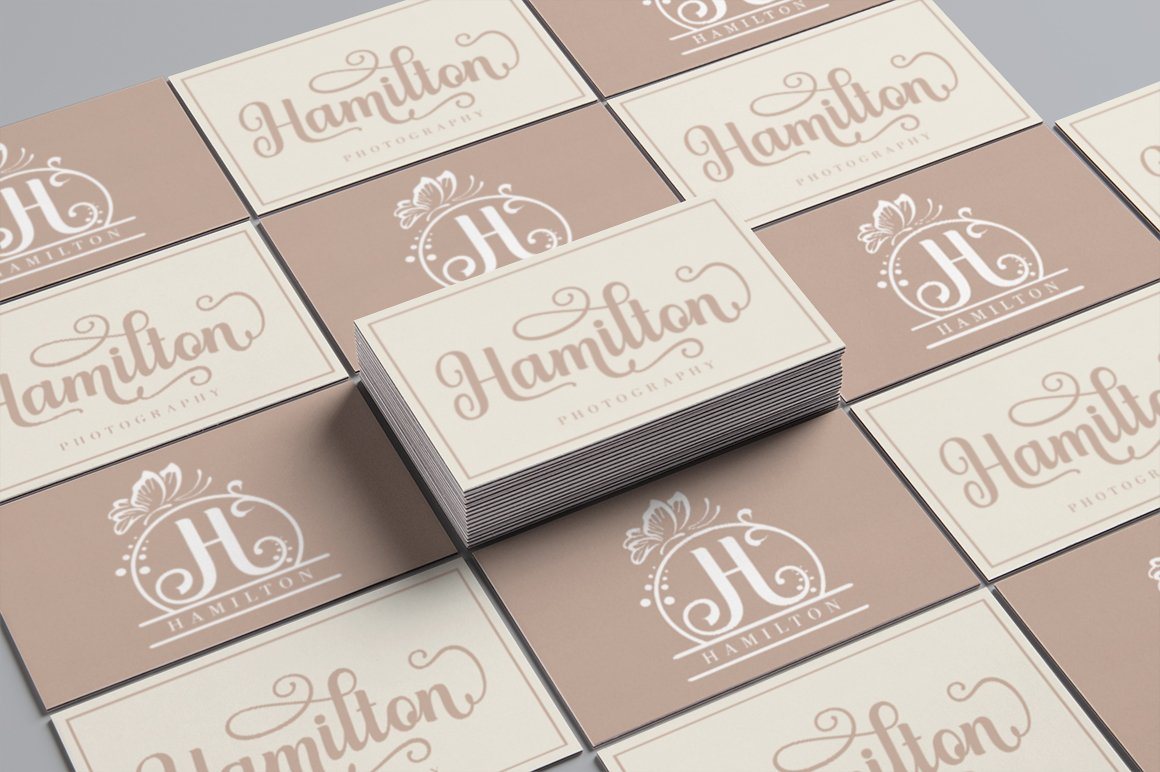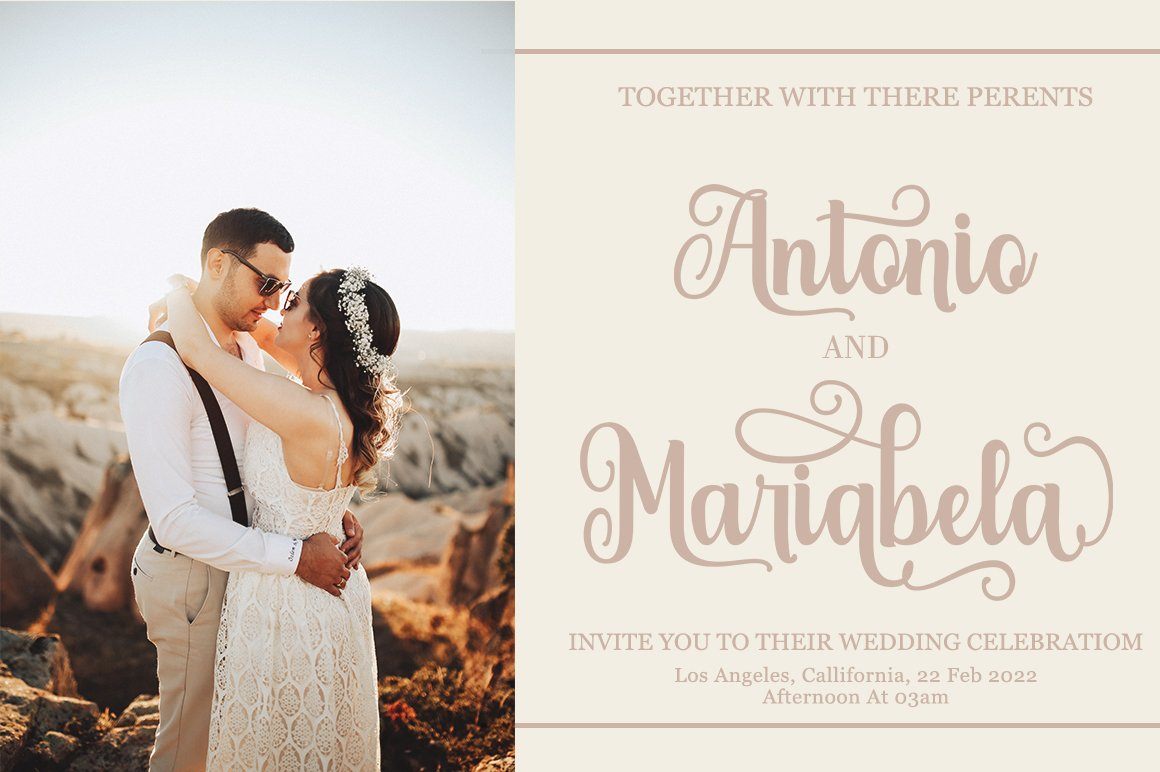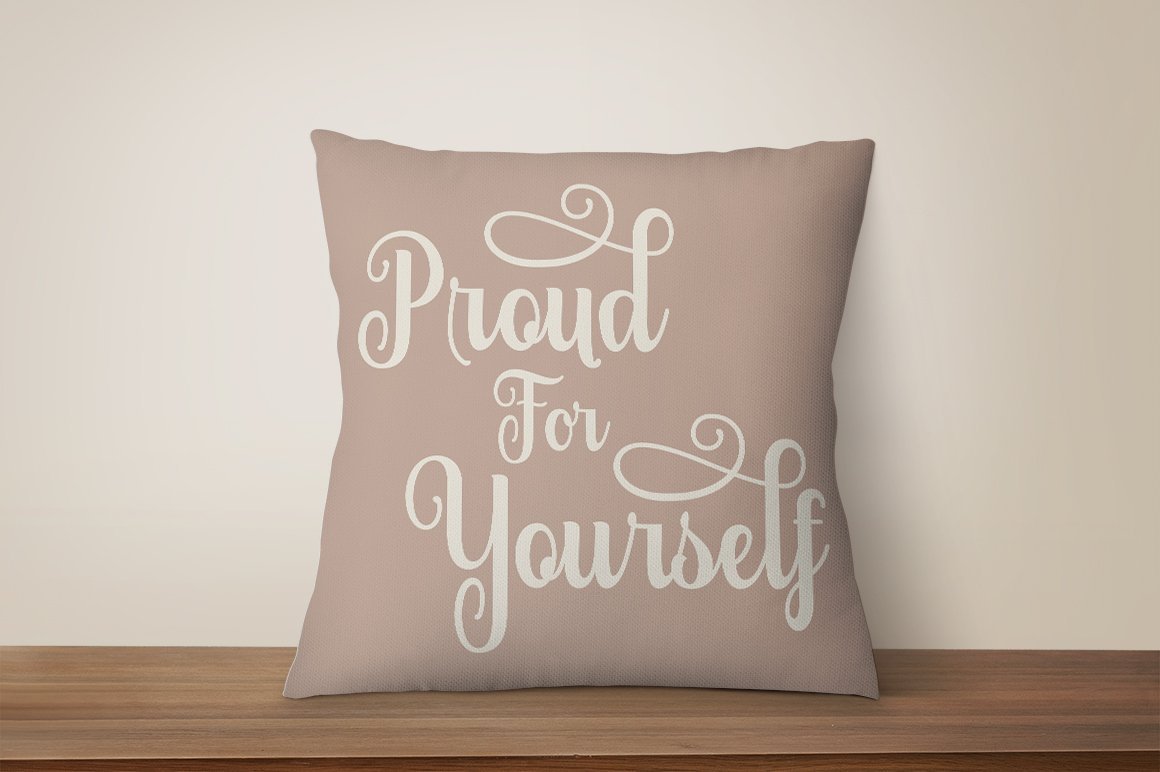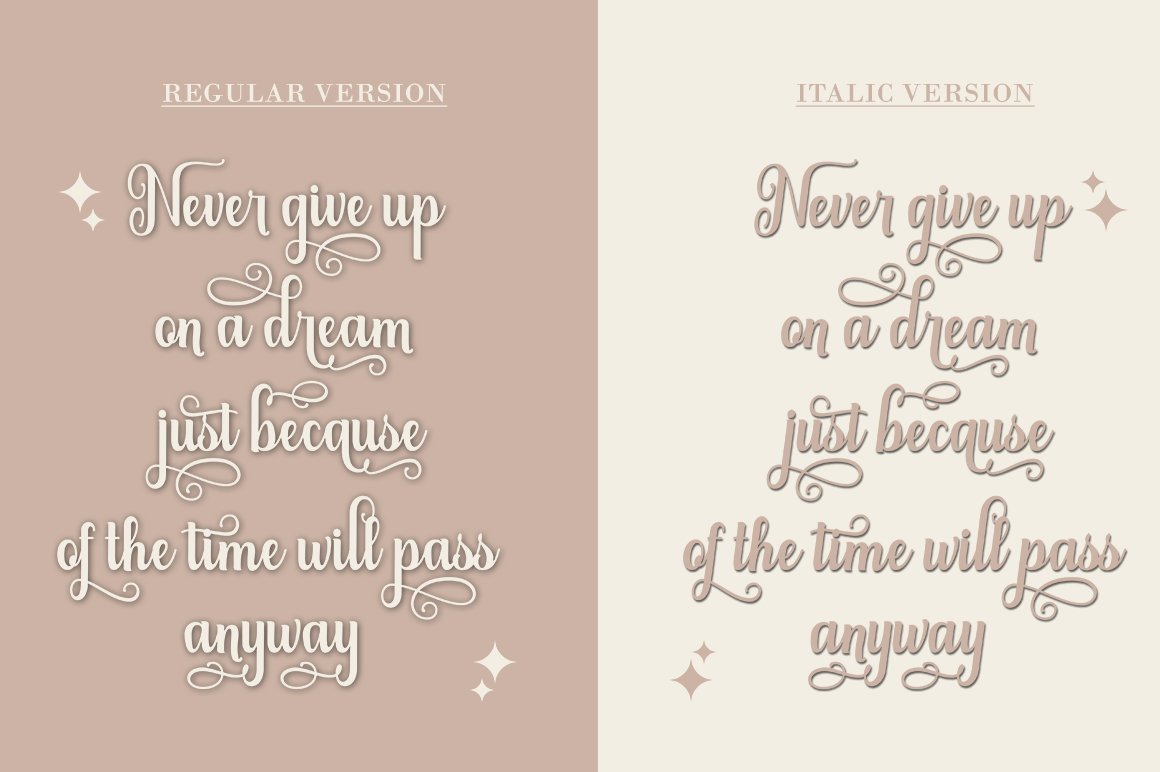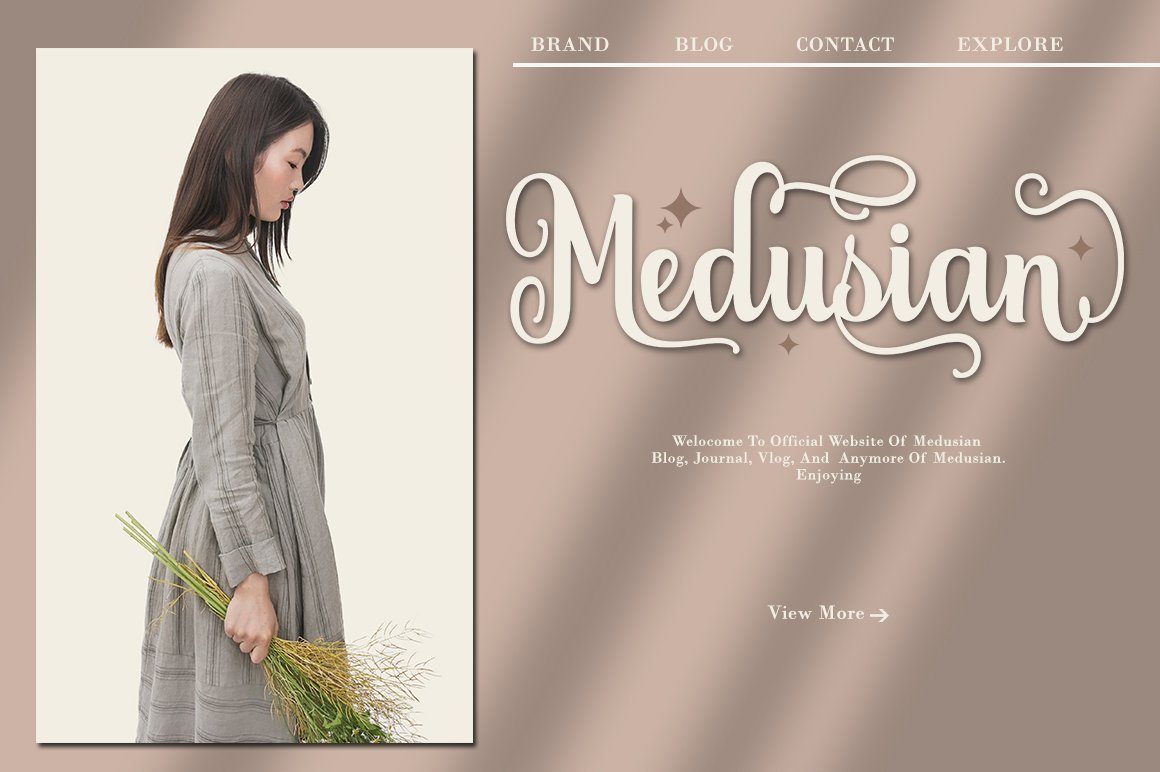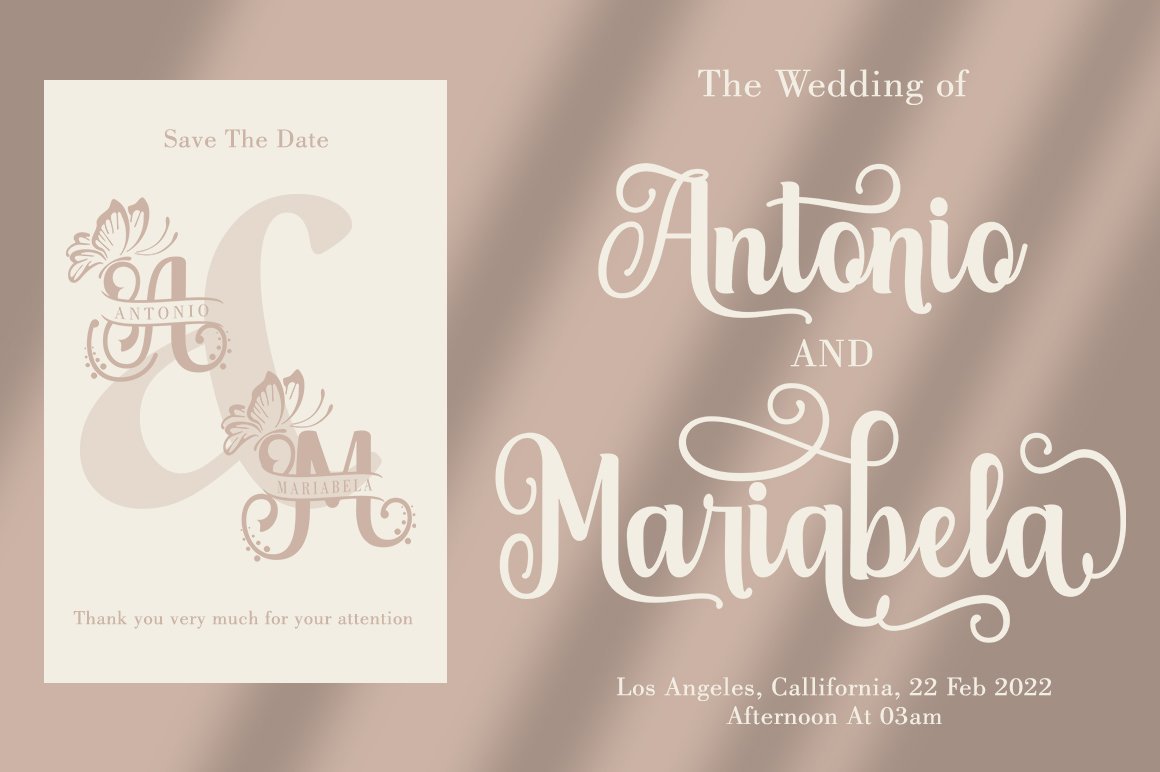
Glorynesia is a font family containing a combination of 2 complementary fonts and an additional font containing an elegant monogram. Glorynesia has many alternative characters for each letter. It includes more than 500+ alternative glyphs at your disposal. Glorynesia has many monograms and logos in OTF and TTF font formats. You can use all lowercase, uppercase, and numbers to access all monogram in font format. This font is perfect for those of you who want to make t-shirt designs, invitation card designs, logos and more Files include: Glorynesia.OTF, TTF Glorynesia Italic.OTF, TTF Glorynesia Monogram.OTF, TTF To enable the OpenType Stylistic alternative, you need a program that supports OpenType features such as Adobe Illustrator CS, Adobe Indesign & CorelDraw X6-X7, Microsoft Word 2010 or later. There are additional ways to access alternatives/swashes, using the Character Map (Windows), Nexus Font (Windows), Font Book (Mac) or a software program such as PopChar (for Windows and Mac). How to access all alternative characters: https://www.youtube.com/watch?v=Go9vacoYmBw https://www.youtube.com/watch?v=XzwjMkbB-wQ https://www.youtube.com/watch?v=x1A_ilsBsGs https://www.youtube.com/watch?v=xFlMwARHusY Thanks so much for looking and let me know if you have any questions. skinny type